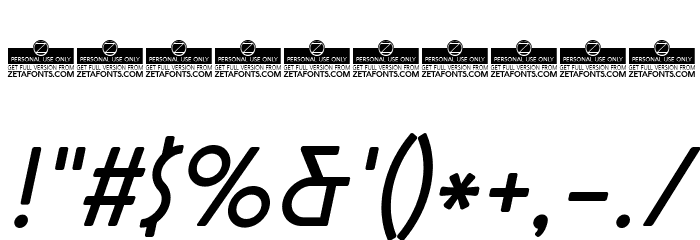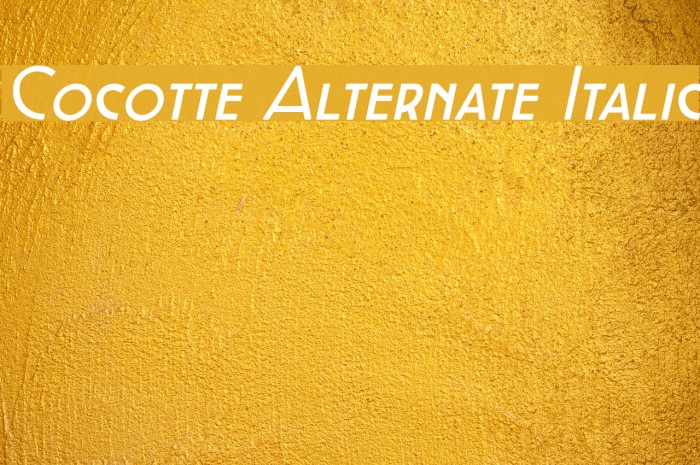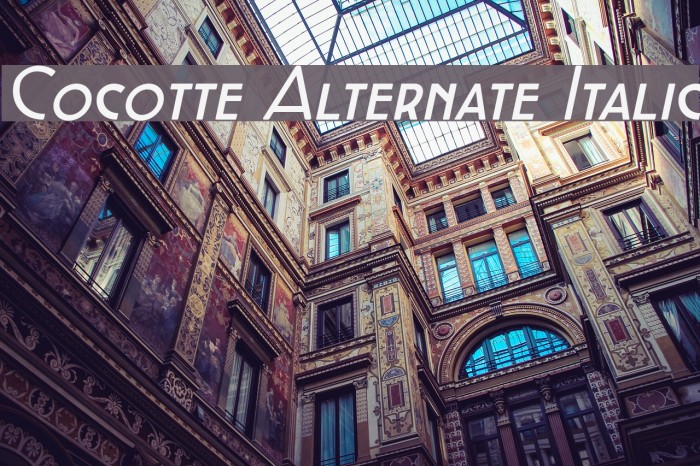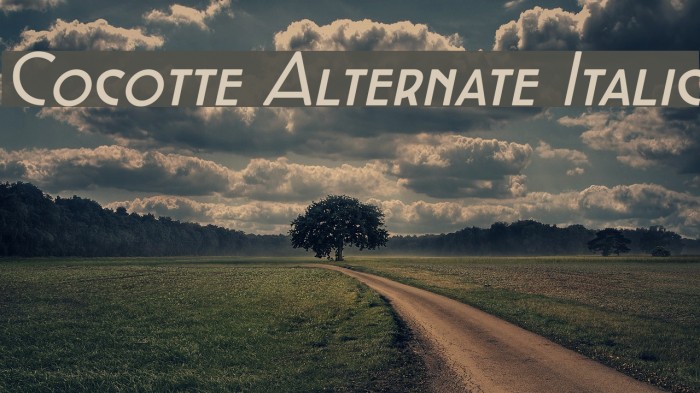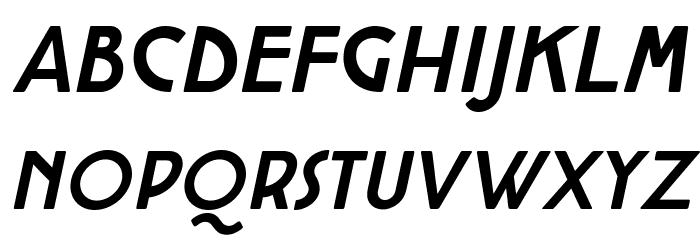
Cocotte Alternate Italic Font
This font exudes a modern and sleek aesthetic with its italicized form, providing a dynamic and forward-leaning appearance. The characters are crafted with precision, featuring clean lines and a consistent stroke width that enhances readability while maintaining a stylish flair. The uppercase and lowercase letters are well-proportioned, offering a harmonious balance that is visually appealing. The numerals and special characters are designed to complement the alphabet, ensuring a cohesive look across all text elements. This font's contemporary style makes it versatile for various design applications.
A modern, italicized font with clean lines and a sleek appearance.
• Proposed Projects: Ideal for branding, advertising, and editorial design where a modern and dynamic look is desired.
• Category: Sans-Serif
• Overall Style: Modern
• Use Case: Headlines, Logos, Advertising